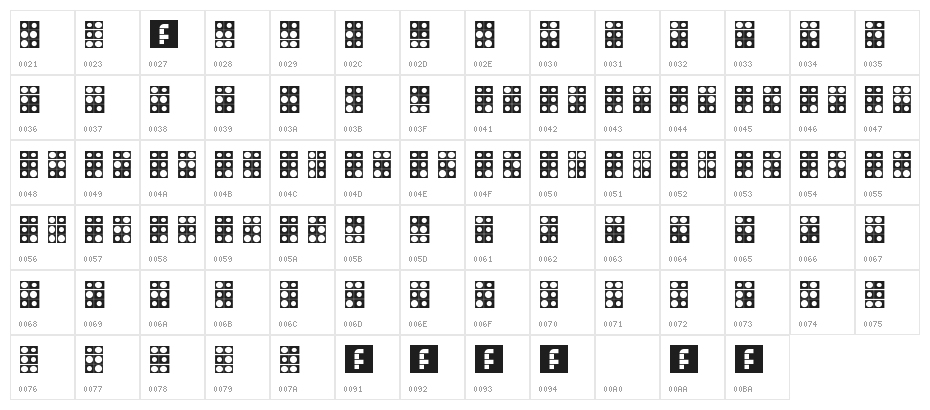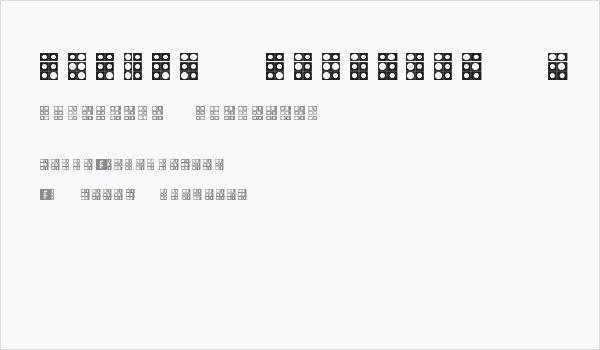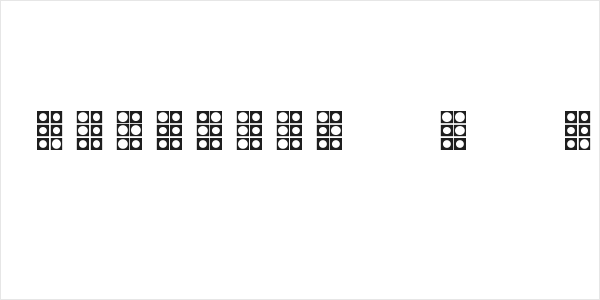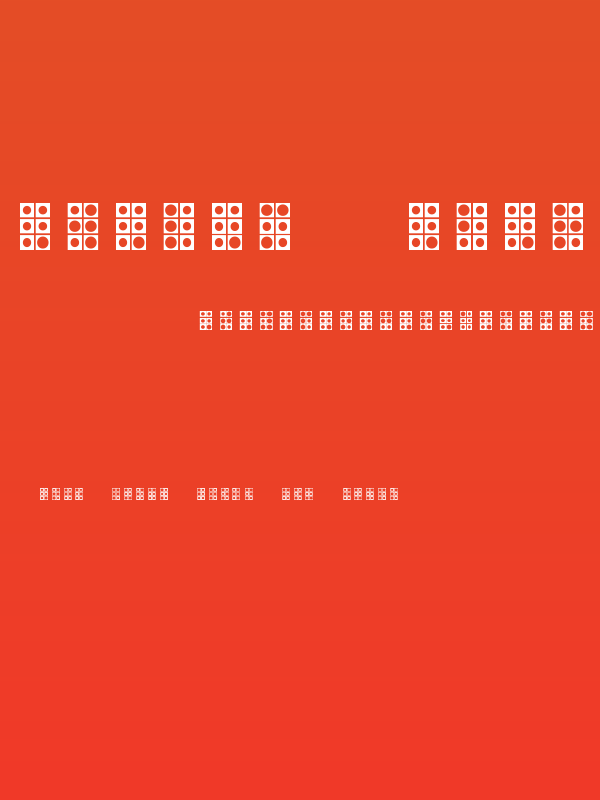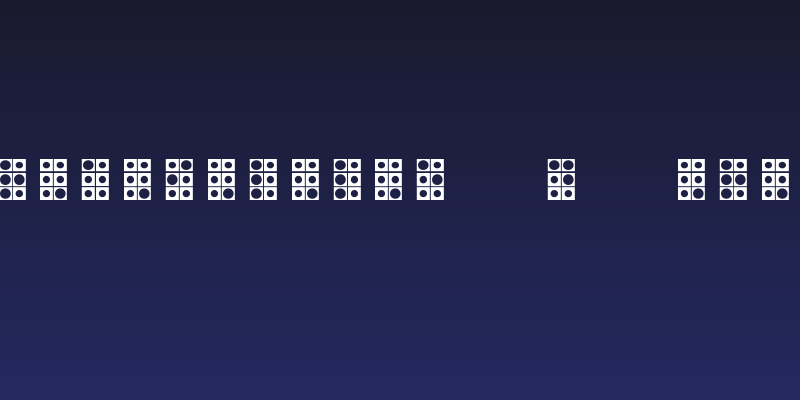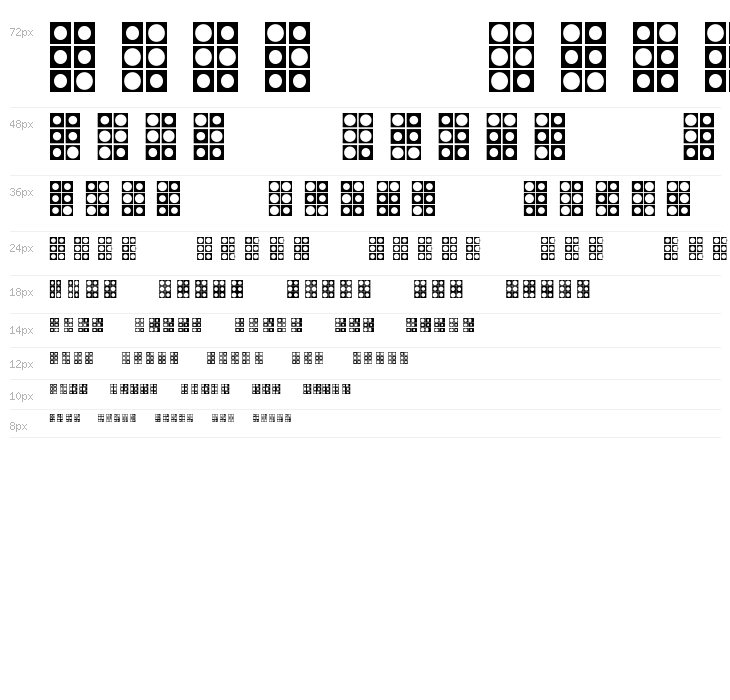
WLM Braille 4 Regular Font
WLM Braille 4 Regular Description
This font is a visual representation of Braille, using a grid of dots to symbolize characters. Each character is composed of a 2x3 grid of dots, where some dots are filled to represent different letters and numbers. The design is highly structured and geometric, maintaining uniformity across all characters. The font is primarily monochrome, with a stark contrast between the filled and unfilled dots, making it visually distinct and easily recognizable. It is not intended for traditional reading but rather for educational or decorative purposes, providing a tactile-like visual experience.
Use CaseDecorative, Educational
Proposed ProjectsIdeal for educational materials about Braille, decorative projects, or accessibility awareness campaigns.